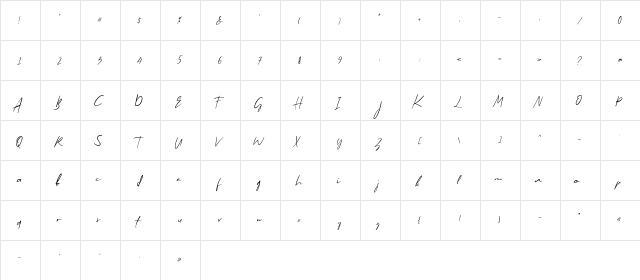
Morning Glow Demo Version Regular
Design Context for Morning Glow Demo Version Typeface
Morning Glow Demo Version is a composed and adaptable typeface that performs quietly and consistently across a wide range of design contexts.